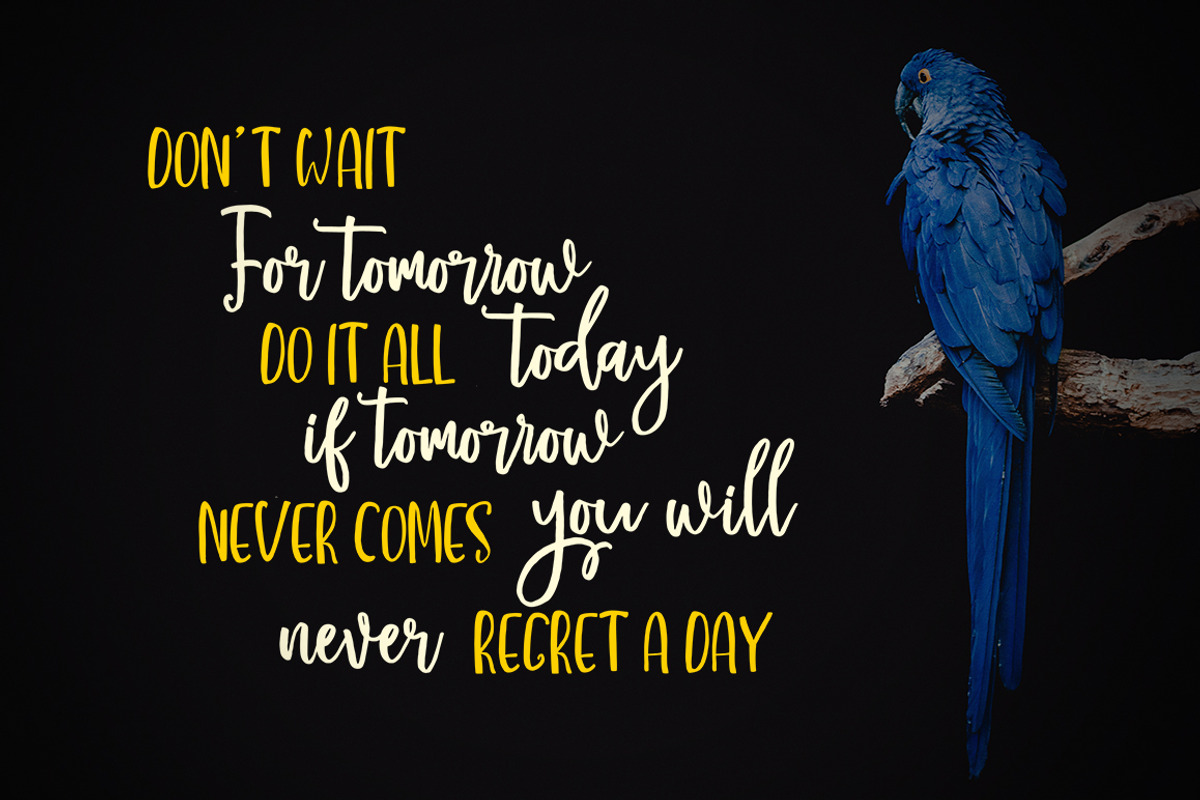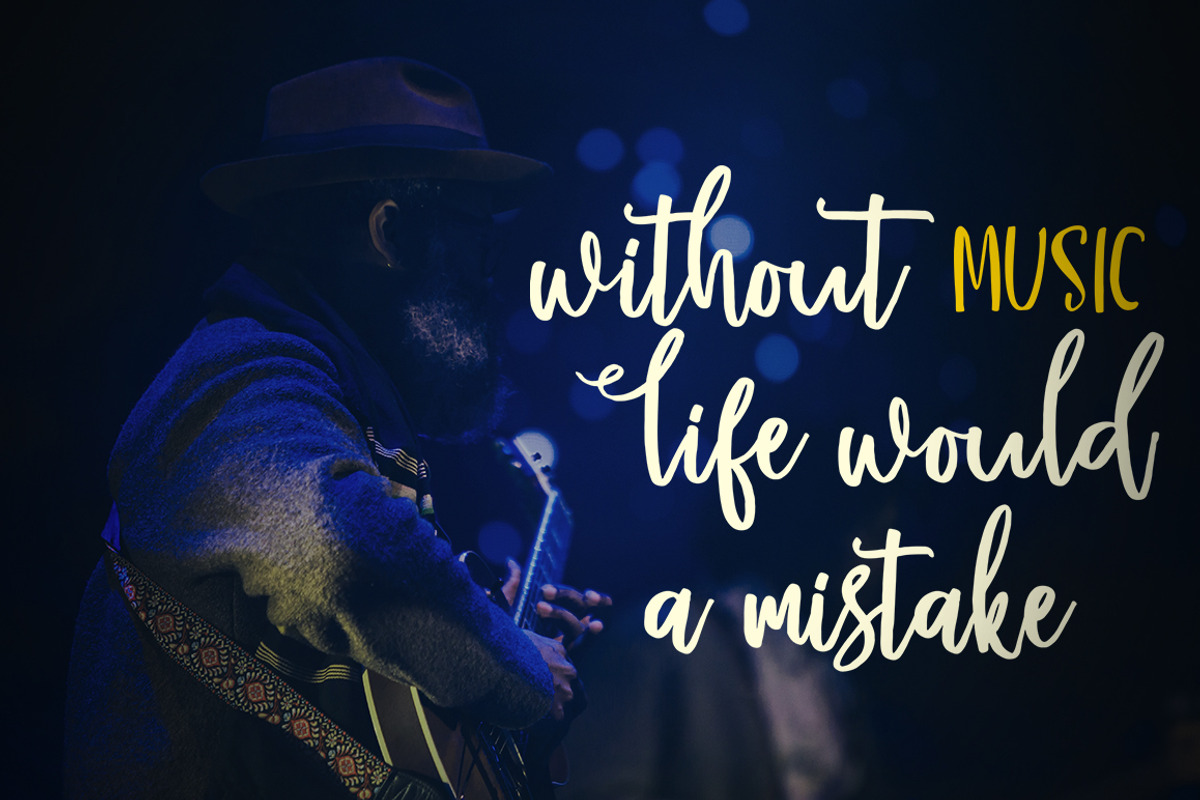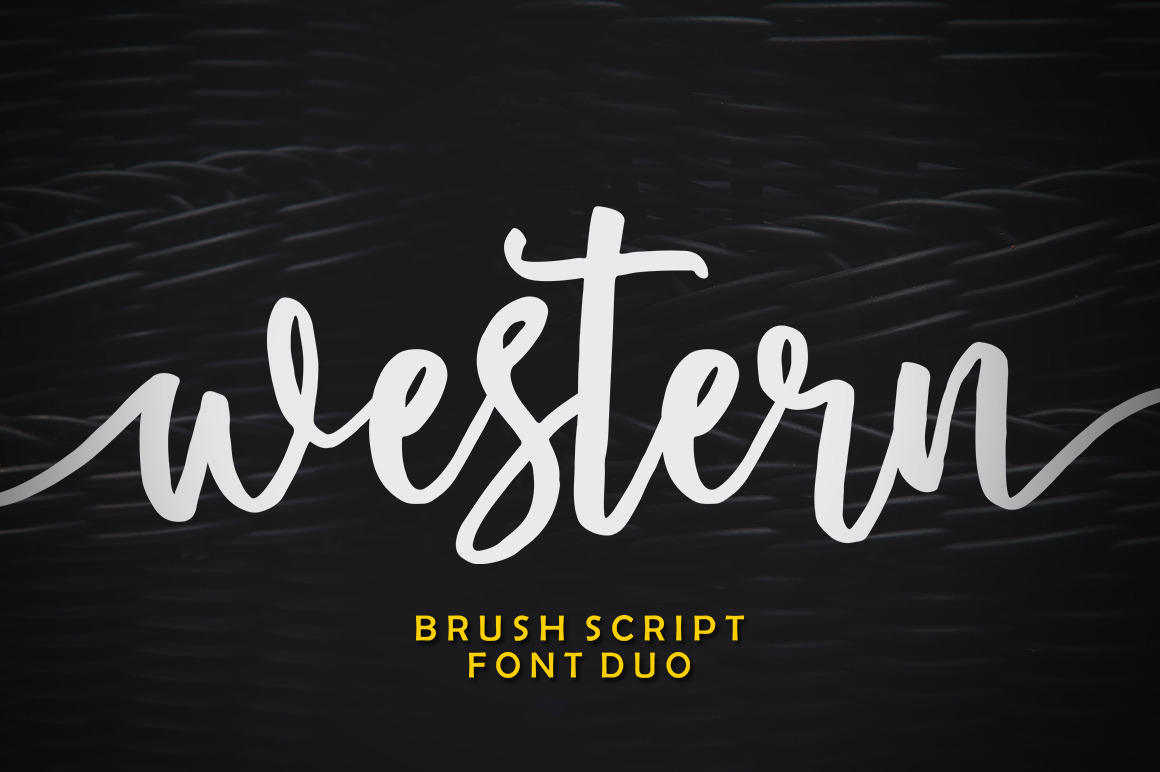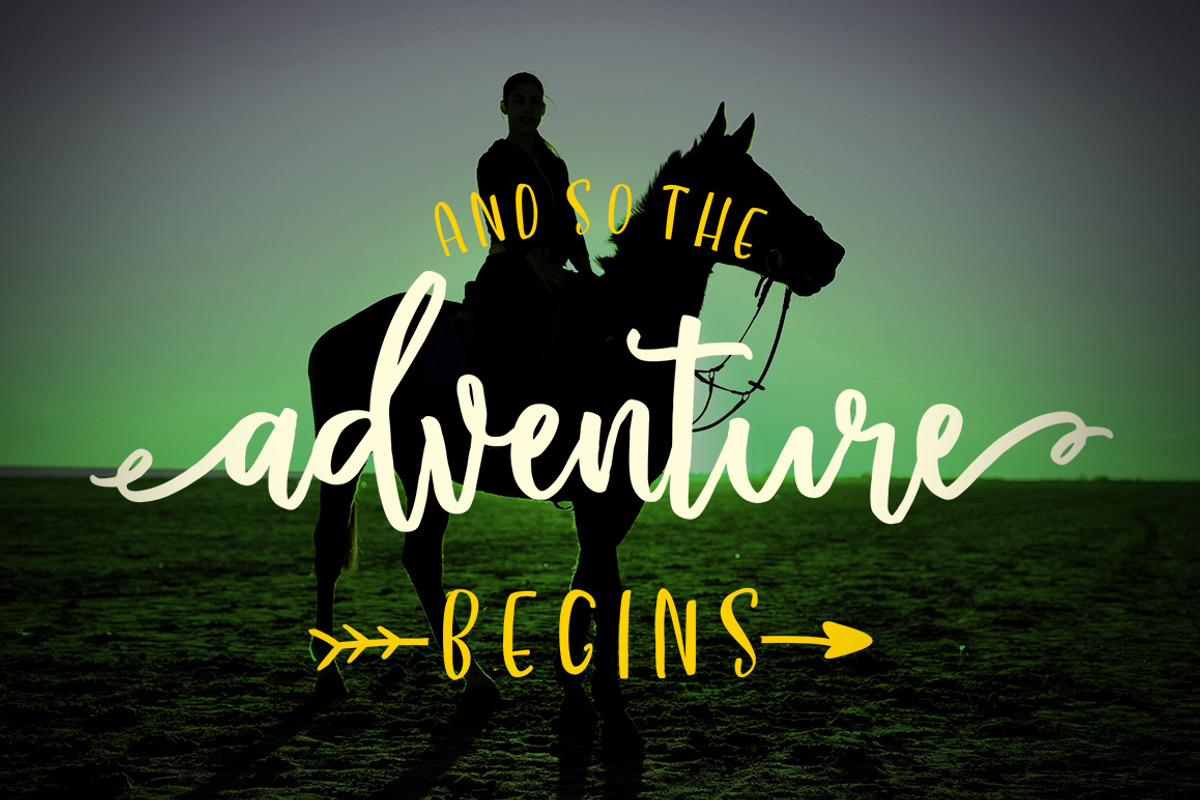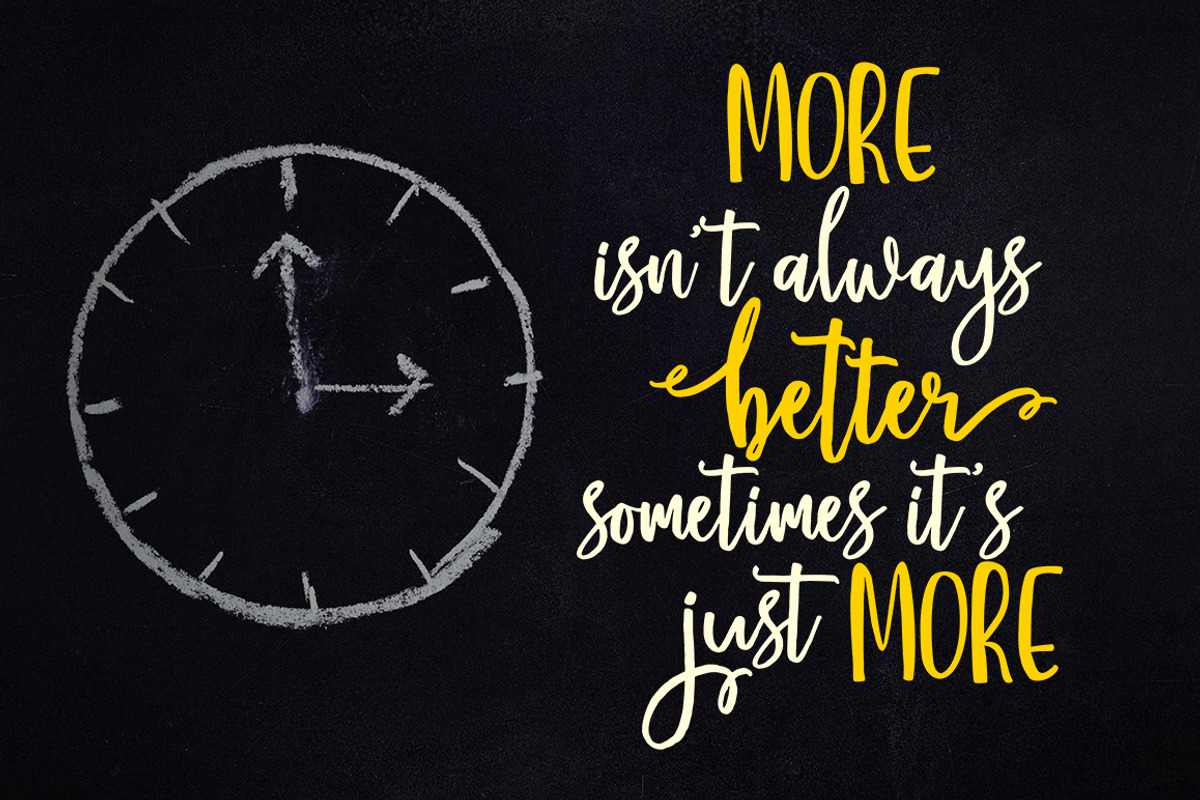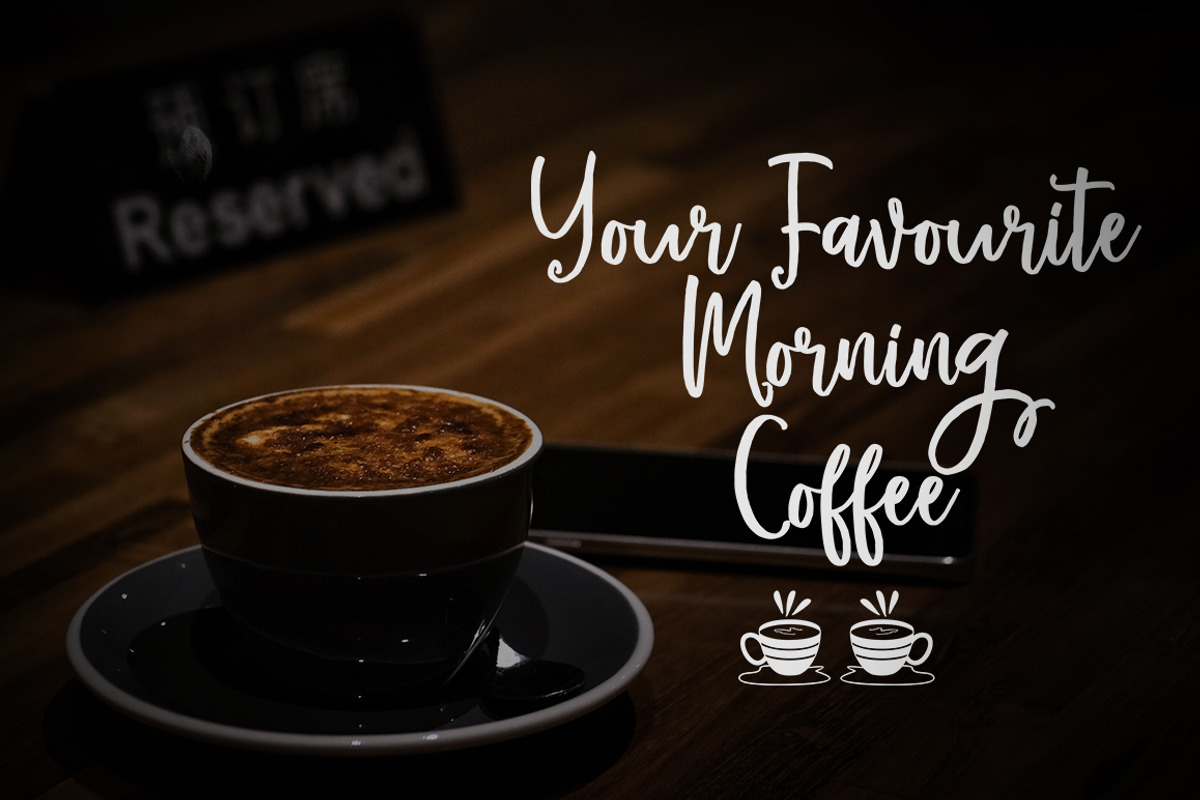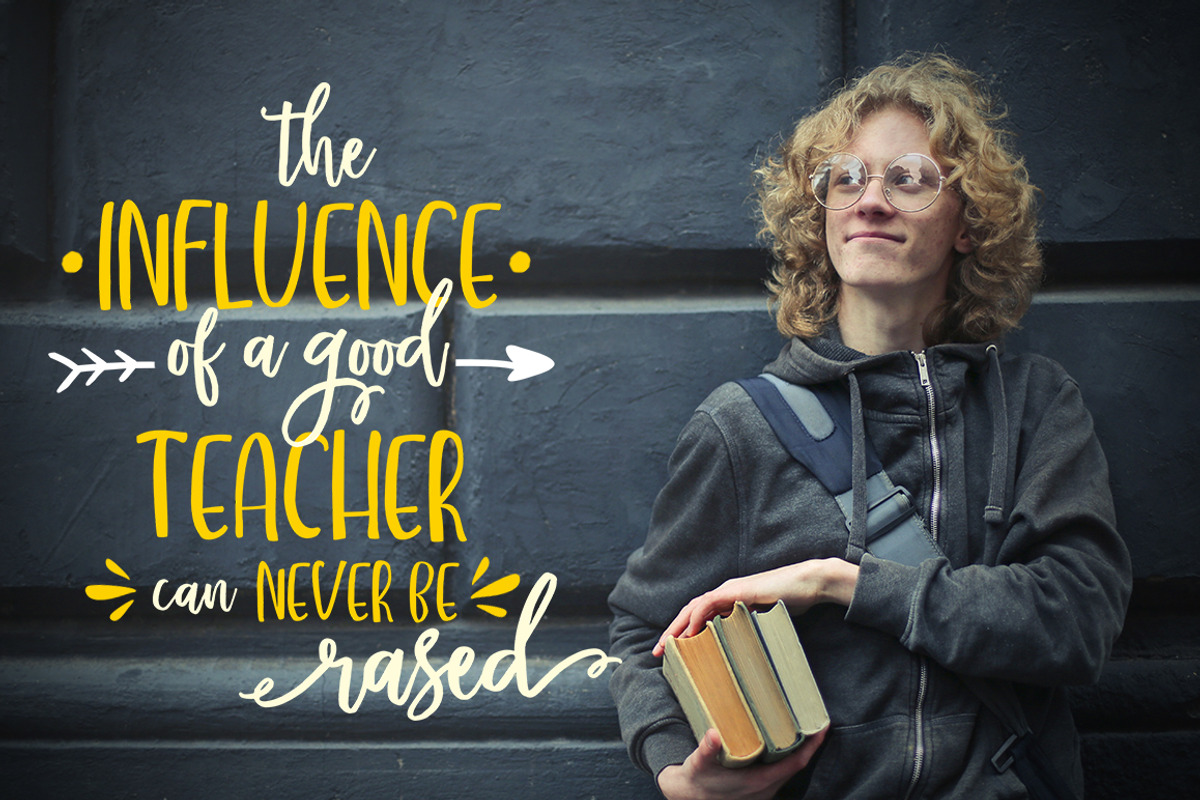
Western Brush Font Duo
Western Brush is a modern, organic, dynamic and energetic brush font. Can be used for various purposes. such as titles, signatures, logos, correspondence, wedding invitations, letterheads, signage, labels, bulletins, posters, badges, etc.
I created the Western font using a brush accurately so it looks very unique. Western fonts also work well with Western Sans fonts.